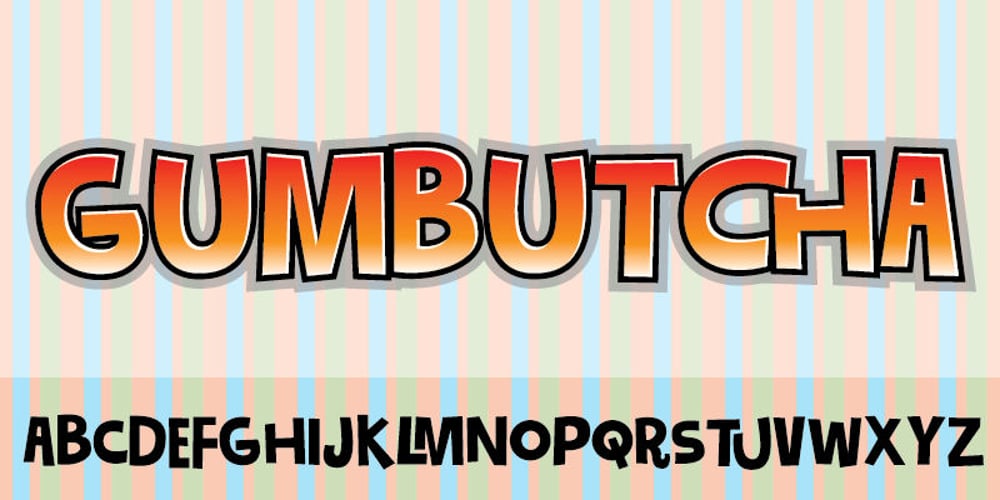
Gumbutcha Font Family was designed by Jakob Fischer and published by PizzaDude.dk. Gumbutcha contains 1 styles and family package options. A jumpy all caps comic font – has got a good handful of funny ligatures! You will need to use OpenType supporting applications to use the autoligatures.